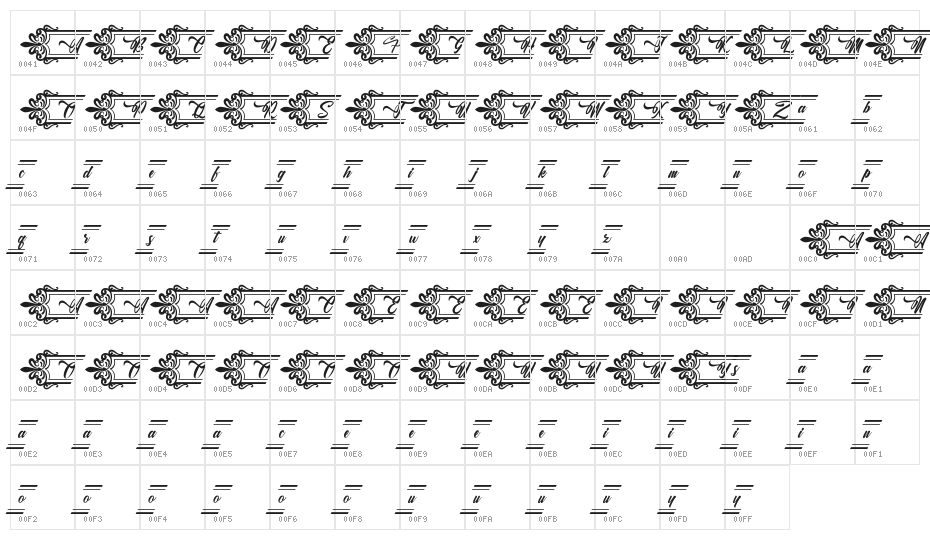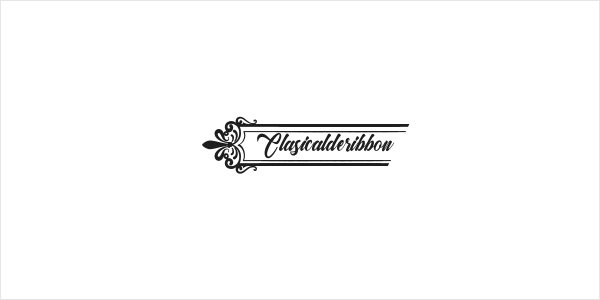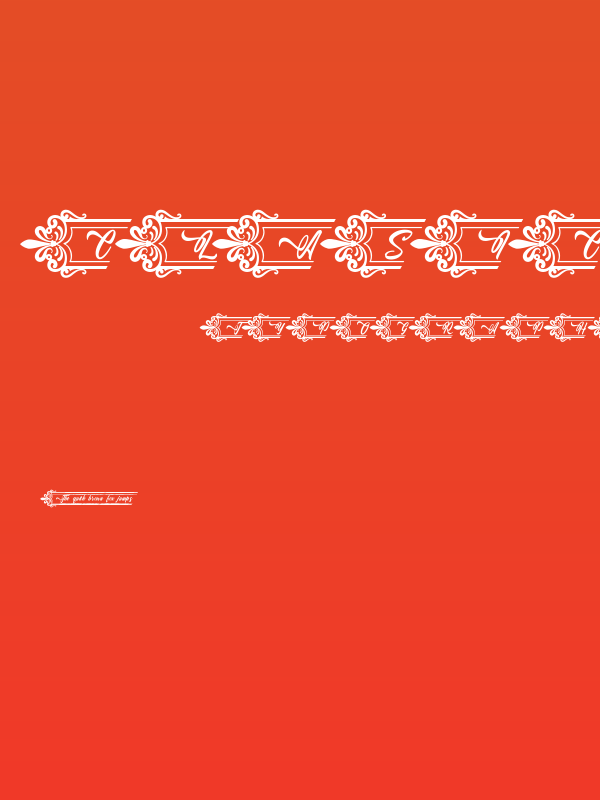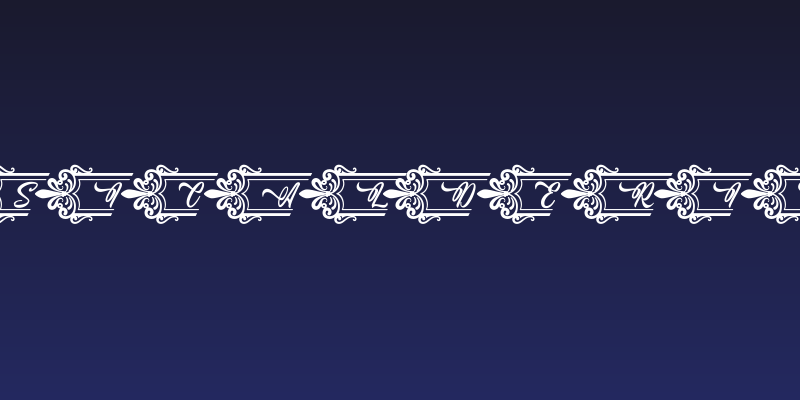
Clasicalderibbon Font
Clasicalderibbon Description
This font features an elegant and flowing script style, characterized by its smooth, cursive strokes and decorative elements. The letters are connected in a fluid manner, giving a sense of motion and grace. The uppercase letters are adorned with intricate flourishes, enhancing the font's ornamental appeal. The lowercase letters maintain a consistent slant, contributing to the overall harmony of the design. The font's unique style is reminiscent of classic calligraphy, making it suitable for projects that require a touch of sophistication and artistry.
| Proposed Projects | Ideal for wedding invitations, elegant branding, and artistic posters. |